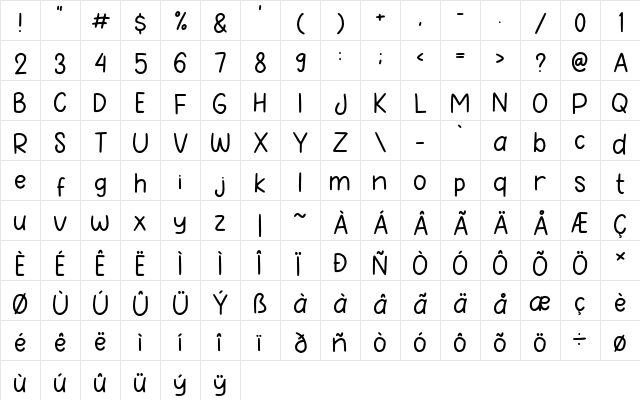
Le Petit Regular
| Foundry | Khurasan |
| Designer | Khurasan |
Design Context for Le Petit Typeface
Le Petit takes a measured approach to typography — its balanced proportions and neutral character make it a reliable workhorse for both digital and print work.